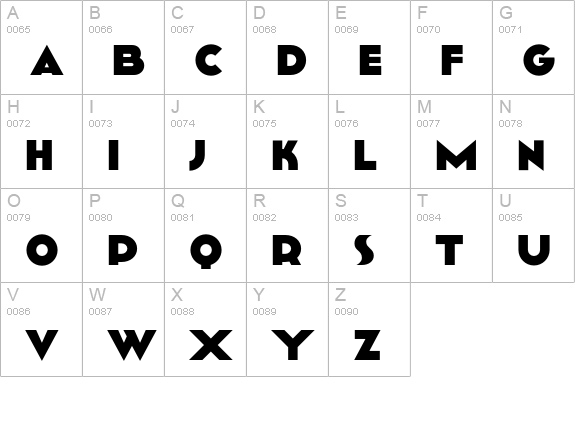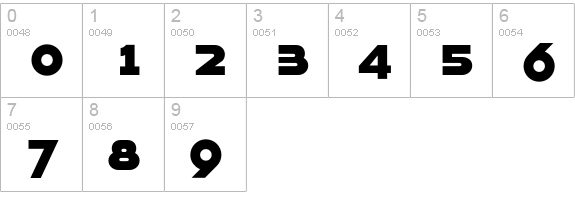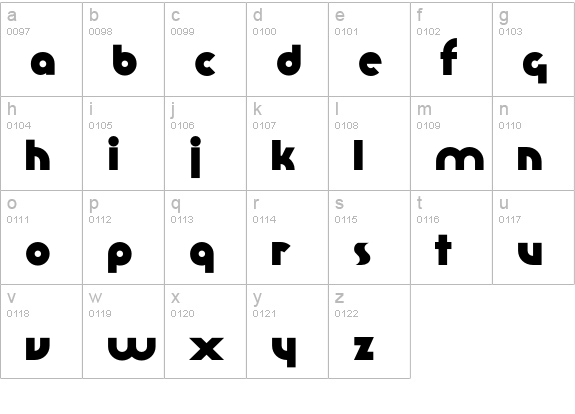
TFRoux-Extrabold Font Details
TFRoux-Extrabold is an extra-heavy, attention-grabbing variant in the TFRoux typeface family \xE2\x80\x94 well suited to high-impact headlines, posters, and bold branding.
Introducing TFRoux-Extrabold, a visually striking and captivating font that exudes boldness and confidence. This font is the epitome of modernity and sophistication, making it perfect for a wide range of design projects. With its strong and commanding presence, TFRoux-Extrabold immediately grabs attention and leaves a lasting impression. Its thick and well-defined strokes effortlessly demand attention, making it ideal for headlines, logos, posters, and any other design element that requires a touch of distinction. What sets TFRoux-Extrabold apart from other fonts is its ability to seamlessly blend elegance with a touch of edginess. It strikes the perfect balance between a timeless appeal and a contemporary vibe, making it versatile enough to suit both classic and modern design styles. Furthermore, TFRoux-Extrabold is free to download at FontsMarket.com. This means that you can now easily access this remarkable font and enhance your design projects without any hassle. Whether you are a professional designer or simply exploring your creative side, TFRoux-Extrabold offers you the opportunity to elevate your designs with its unparalleled visual impact. So, don't miss out on this incredible opportunity to enhance your designs with the TFRoux-Extrabold font. Download it for free at FontsMarket.com and unlock a world of endless possibilities in your creative endeavors.